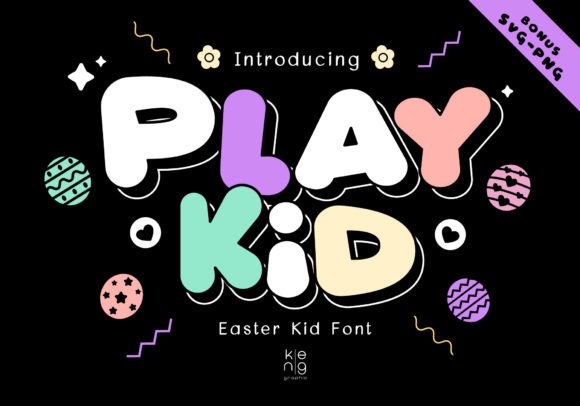
Are you ready to add some fun and energy to your designs? Look no further than Play Kid Font! This playful and bulky display font is perfect for those who want to make a bold statement. Created by the talented keng graphic, Play Kid is a font that's sure to grab attention.
With exaggerated curves and a whimsical design, Play Kid Font adds a touch of playfulness to any project. Whether you're designing a poster, creating packaging, or working on a branding project, Play Kid is the font for love! Its unique style is ideal for those who want to add a dynamic vibe to their work.
If you're looking for a font that will make your designs stand out, Play Kid is the font for you. It's eye-catching, playful, and perfect for those who want to make a statement. With its versatility and fun-loving design, Play Kid Font is sure to bring a smile to your face and to the faces of your audience.